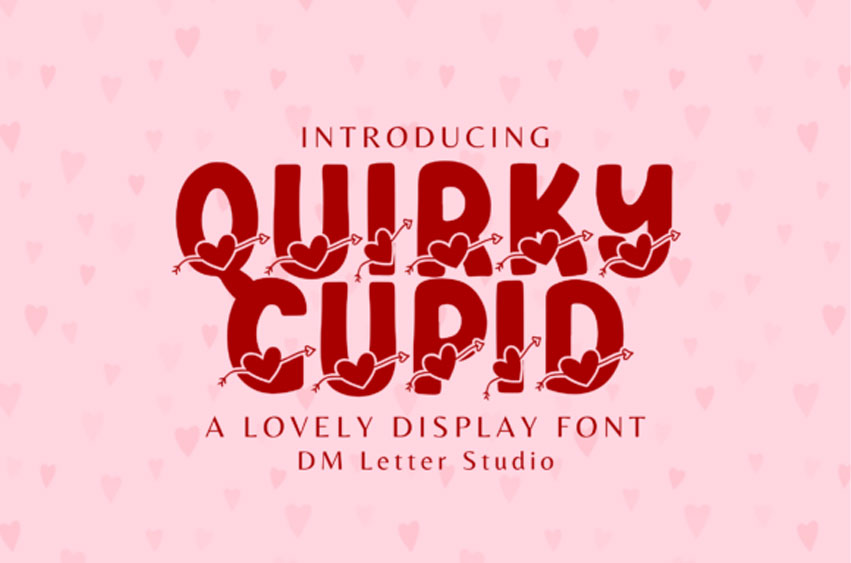
Quirky Cupid Font
Quirky Cupid Font is a cheerful and whimsical font designed to celebrate love in the most charming way. With its heart-infused strokes and quirky, hand-drawn style, this font is perfect for Valentine’s Day cards, wedding invitations, love notes, romantic crafts, and playful branding.
It adds a touch of fun and affection to any heartfelt project.